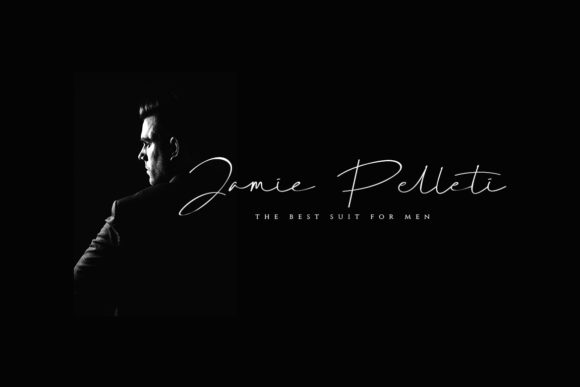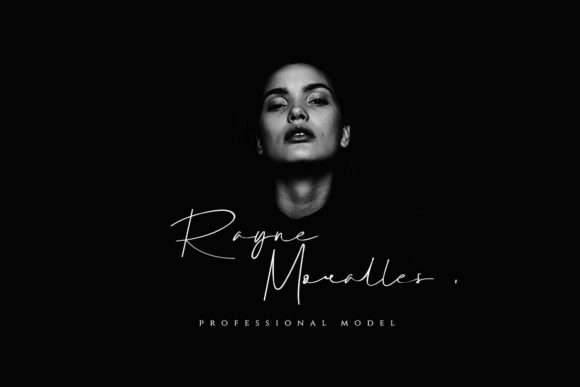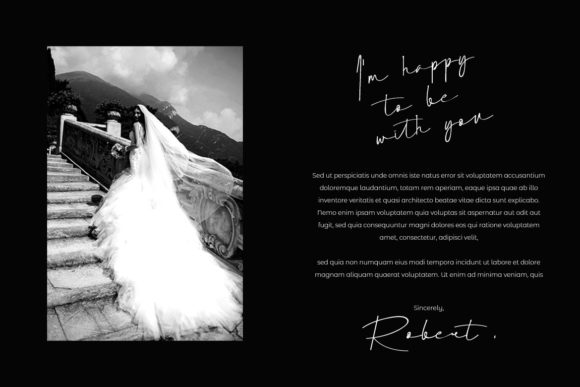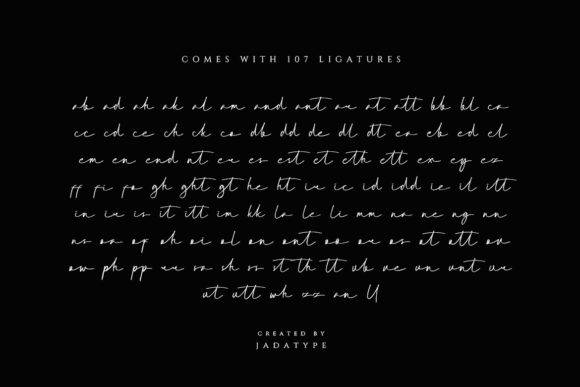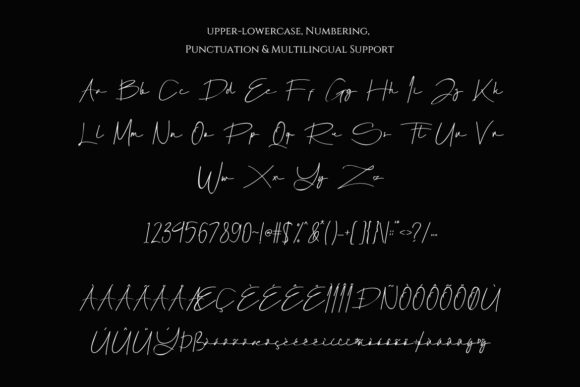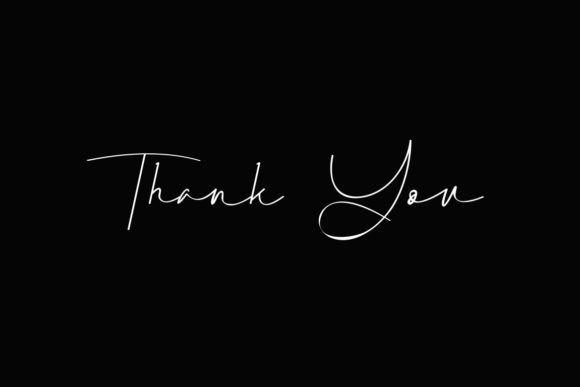
Introduction to Relagon Font
Have you ever been working on a creative project, pouring your heart and soul into it, and then – you stumble upon the perfect font. The one that elevates your design from good to great, and makes you feel like you’re speaking directly to your audience’s hearts. That’s exactly what happened to many designers when they discovered the Relagon Font.
This stunning, light, and cursive handwritten font has been a game-changer for designers looking to add a touch of elegance and sophistication to their designs. With its ravishing style and PUA encoding, which allows for easy access to all glyphs and swashes, the Relagon Font has become a valuable design resource for creatives.
Whether you’re working on a branding project, a wedding invitation, or a social media graphic, the Relagon Font is sure to impress. Its high-quality design makes it perfect for any creative project that requires a touch of whimsy and charm. And the best part? You can download it for free, giving you the freedom to experiment and explore its endless possibilities.
Key Features of Relagon Font
- Features a unique and elegant design, perfect for use on transparent backgrounds or with a subtle drop shadow effect.
- Includes a comprehensive character set, covering a wide range of languages and special characters.
Honest Review: Relagon Font
I recently stumbled upon the Relagon Font and was eager to try it out for my creative project. First impressions are everything, and I was immediately drawn to its sleek and modern design.
- ✨ High-quality design: The Relagon Font is crisp and clear, making it perfect for use in logos, headings, and titles.
- ✨ Wide range of applications: From business cards to digital displays, this font is versatile and suitable for various design needs.
However, there are a few limitations to consider. The font lacks a transparent background, which can make it difficult to use in certain design scenarios.
- ⚠️ Limited customization: While the Relagon Font is beautiful, it’s not as customizable as some other fonts on the market.
Overall, I’m impressed with the Relagon Font as a design resource. Its high-quality design and wide range of applications make it a great choice for creative projects. While it may not be perfect, it’s a great addition to any designer’s toolkit.
Using Relagon Font in Creative Projects
Relagon Font is perfect for any creative project that requires a unique and stylish look. Its transparent background makes it easy to overlay on images or use as a standalone element.
Tips for Getting the Most Out of Relagon Font
To get the most out of Relagon Font, experiment with different font sizes, colors, and combinations to create a unique look. You can also use it in conjunction with other design elements to add depth and interest to your design.
Relagon Font is commonly used in various design projects, including branding, marketing materials, and digital products. Its versatility and high quality make it an ideal choice for any creative project.
Alternatives to Relagon Font
Comparison to Relagon Font: While Relagon Font has a more playful and modern feel, Aurora Script offers a timeless and sophisticated look that’s perfect for high-end design projects.